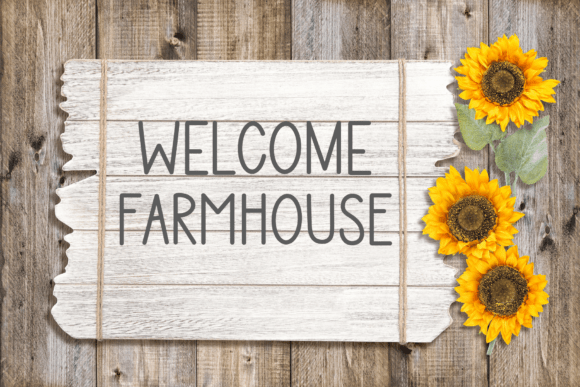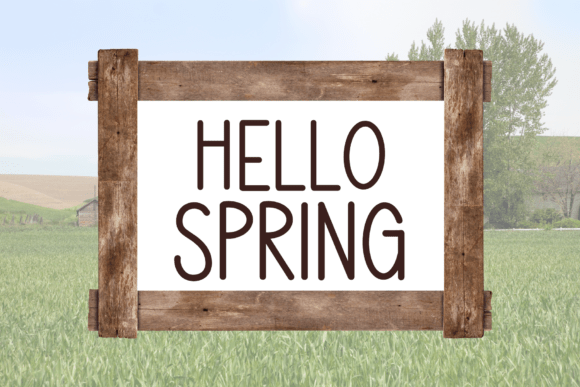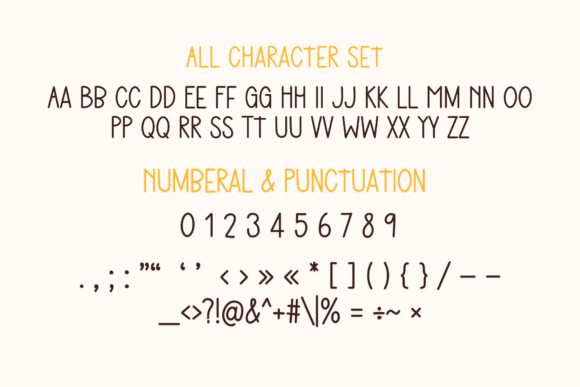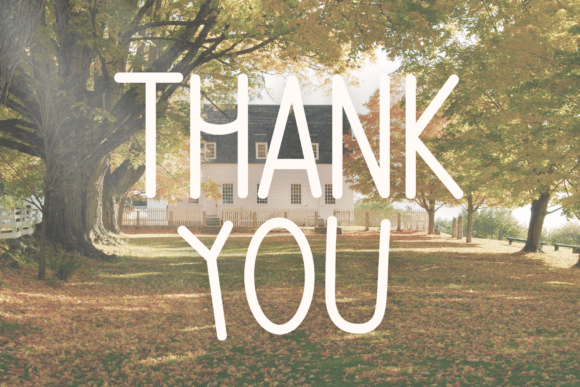
Introducing Happy Farmhouse Font: The Perfect Addition to Your Design Collection
Are you a designer, crafter, or DIY enthusiast looking for a font that embodies playfulness and authenticity? Look no further than the Happy Farmhouse Font! This handwritten font is the perfect choice for adding a personal touch to your favorite projects, from blog posts and logos to branding, ads, invitations, greeting cards, planners, photo albums, decorations, and more.
What is Happy Farmhouse Font?
Happy Farmhouse Font is a beautiful, handwritten font that exudes warmth and friendliness. Its playful and authentic feel makes it perfect for a wide range of design projects, from rustic and vintage-inspired designs to modern and trendy ones. With its unique and charming character, Happy Farmhouse Font is sure to add a touch of personality to any design.
Features of Happy Farmhouse Font
- Handwritten font: Happy Farmhouse Font is a handwritten font, which means it has a personal and unique feel to it.
- Playful and authentic: The font embodies playfulness and authenticity, making it perfect for designs that require a friendly and approachable feel.
- Versatile: Happy Farmhouse Font can be used for a wide range of design projects, from blog posts and logos to branding, ads, invitations, greeting cards, planners, photo albums, decorations, and more.
- Easily readable: The font is clear and easy to read, making it perfect for body text and headings.
Uses of Happy Farmhouse Font
Happy Farmhouse Font is a versatile font that can be used for a wide range of design projects. Here are some ideas to get you started:
- Blog posts: Add a personal touch to your blog posts with Happy Farmhouse Font. It’s perfect for headings, subheadings, and body text.
- Logos and branding: Create a unique and memorable logo for your brand with Happy Farmhouse Font. It’s perfect for businesses that want to convey a friendly and approachable image.
- Invitations and greeting cards: Add a touch of personality to your invitations and greeting cards with Happy Farmhouse Font. It’s perfect for weddings, birthdays, and other special occasions.
- Planners and journals: Create a beautiful and functional planner or journal with Happy Farmhouse Font. It’s perfect for bullet journaling, daily planning, and note-taking.
- Decorations: Use Happy Farmhouse Font to create beautiful decorations for your home or office. It’s perfect for signs, banners, and wall art.
Why Choose Happy Farmhouse Font?
There are many fonts available online, but Happy Farmhouse Font stands out from the rest. Here are some reasons why:
- Unique and charming: Happy Farmhouse Font has a unique and charming character that sets it apart from other fonts.
- High-quality design: The font is designed with high-quality craftsmanship, ensuring that it looks great in any design.
- Easily readable: The font is clear and easy to read, making it perfect for body text and headings.
- Versatile: Happy Farmhouse Font can be used for a wide range of design projects, making it a great addition to any design collection.
In conclusion, Happy Farmhouse Font is a beautiful and versatile font that embodies playfulness and authenticity. Its unique and charming character makes it perfect for a wide range of design projects, from blog posts and logos to branding, ads, invitations, greeting cards, planners, photo albums, decorations, and more. With its high-quality design and easily readable characters, Happy Farmhouse Font is a great addition to any design collection. So why wait? Add Happy Farmhouse Font to your designs today and enjoy the results!
Whether you’re a designer, crafter, or DIY enthusiast, Happy Farmhouse Font is sure to become a favorite in your design collection. Its versatility and charm make it perfect for any design project, and its high-quality design ensures that it will look great in any application. So go ahead, get creative, and add Happy Farmhouse Font to your designs today!